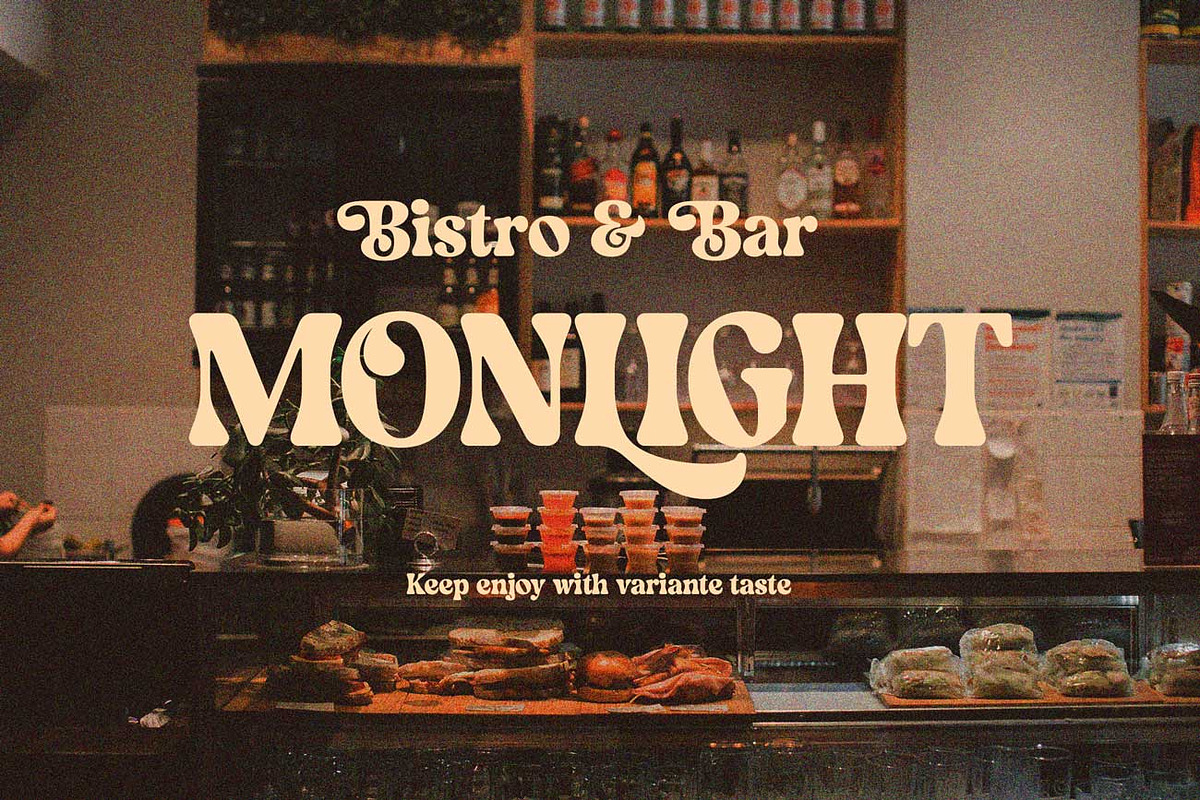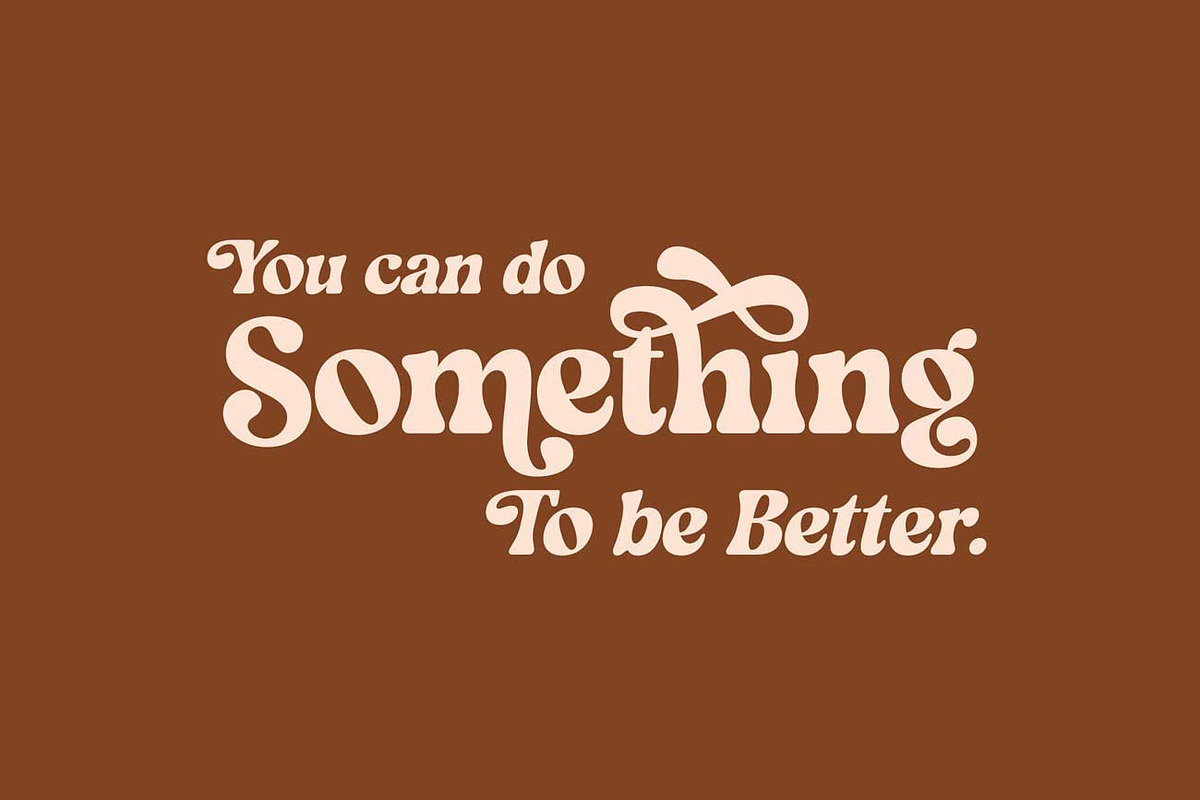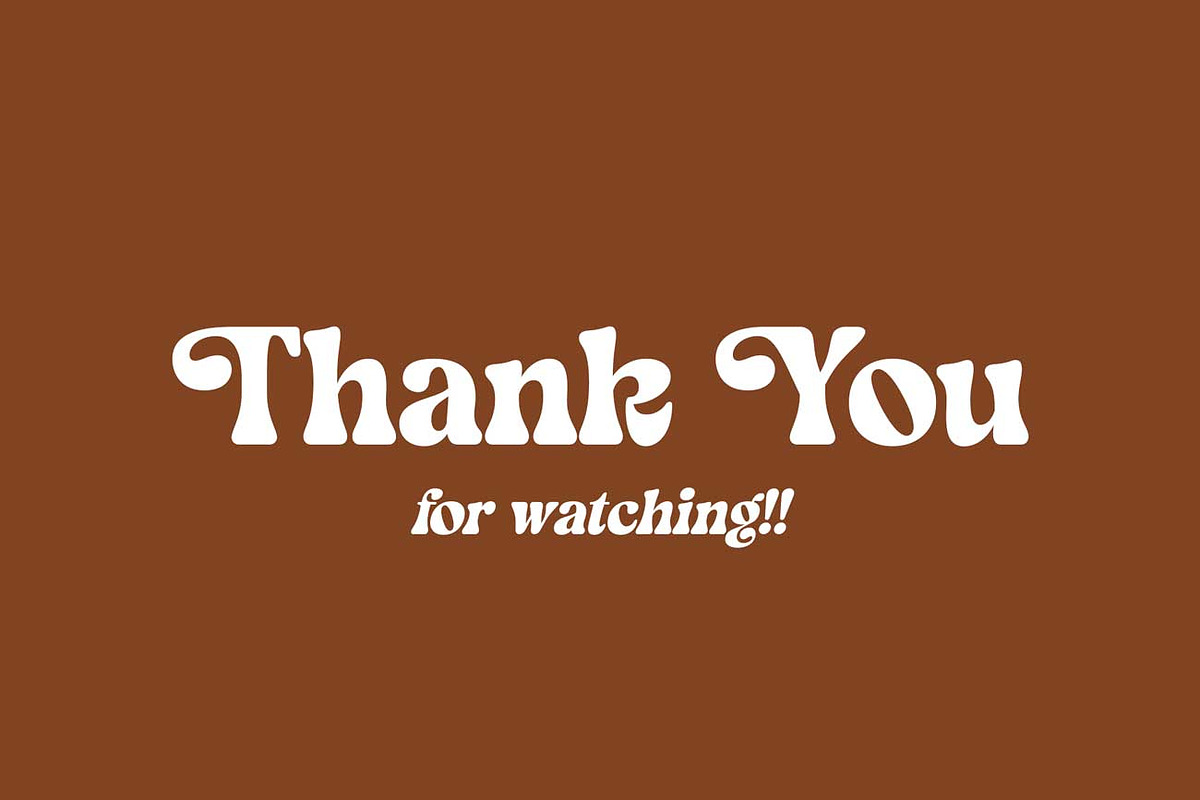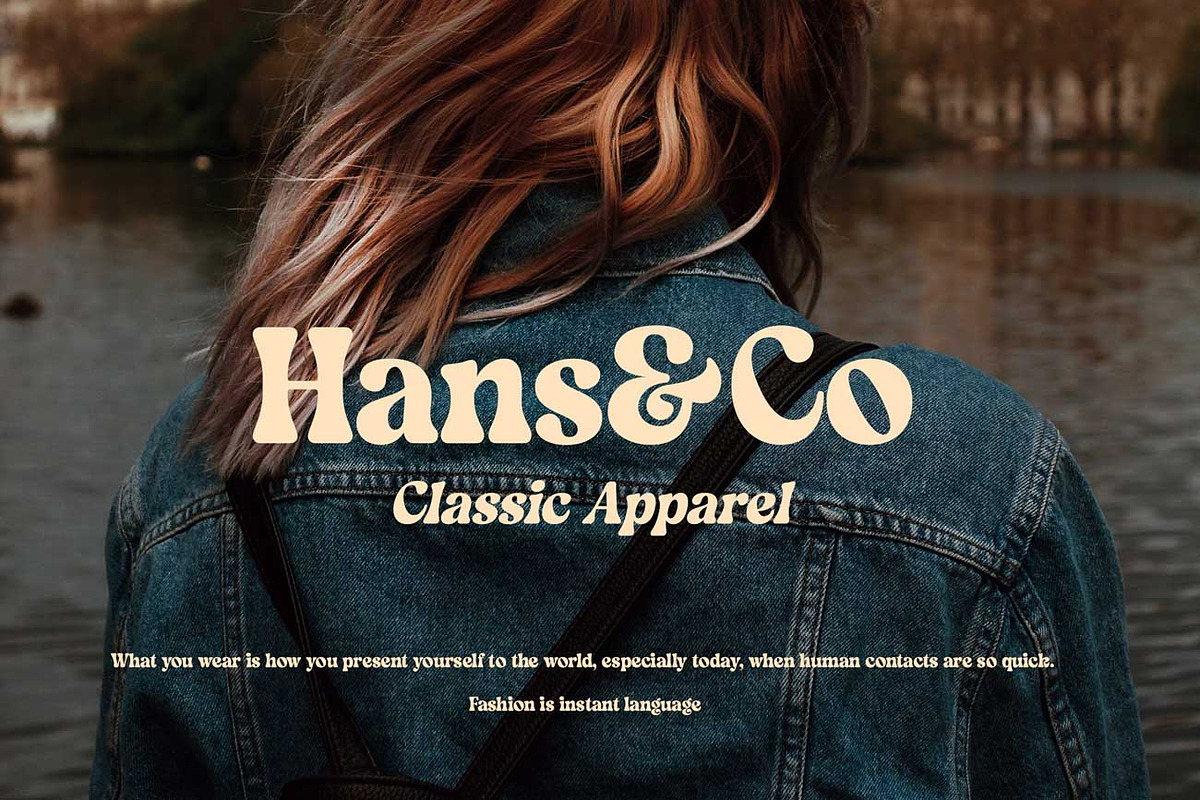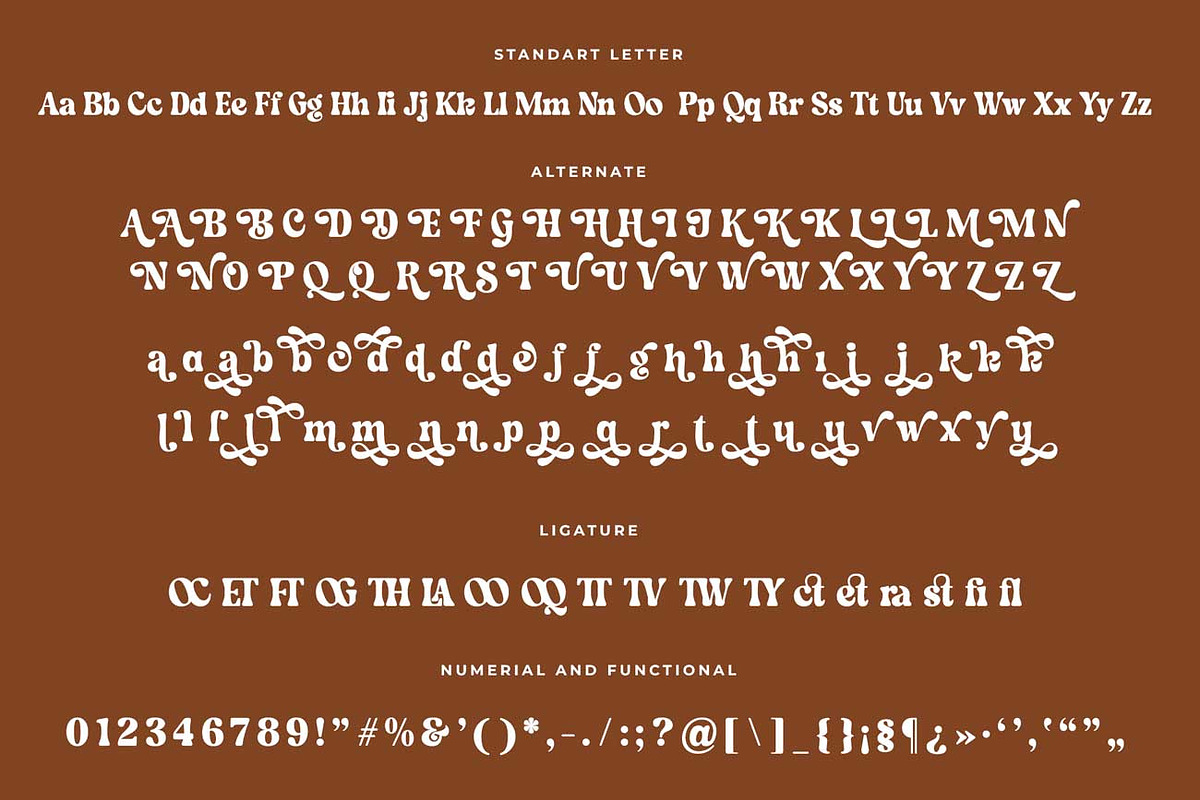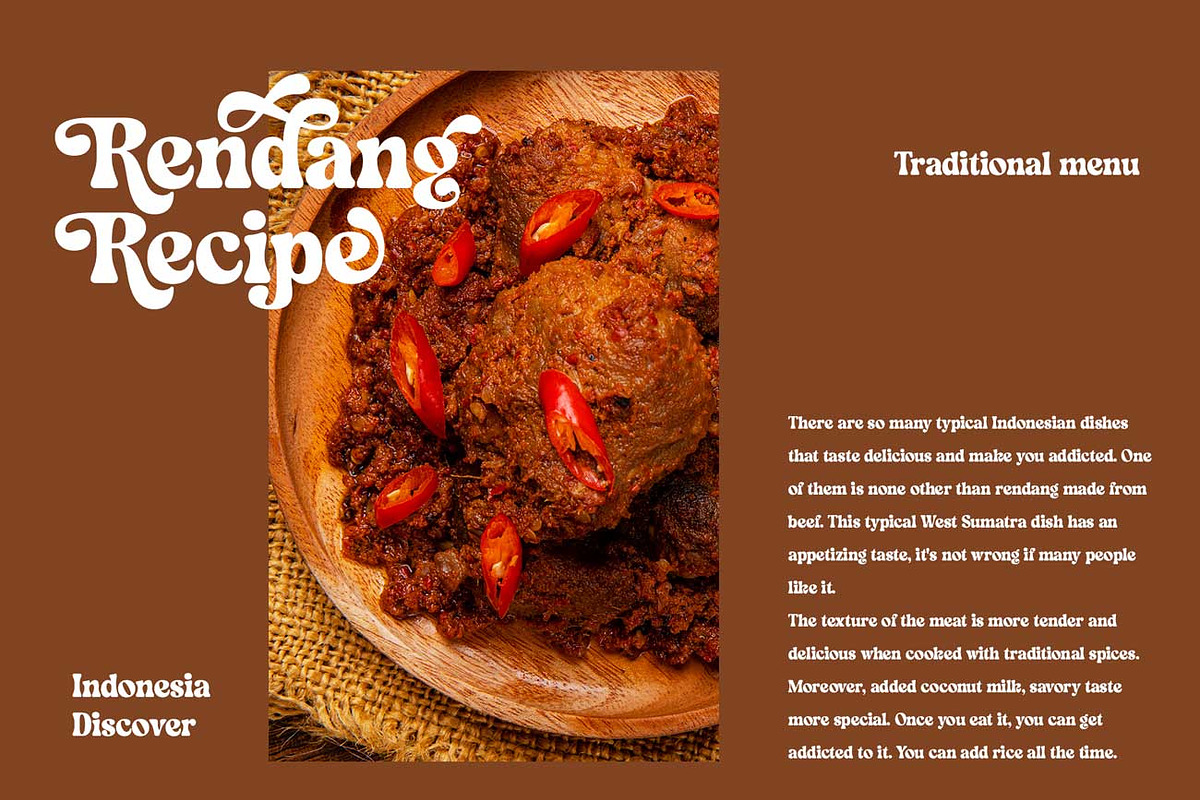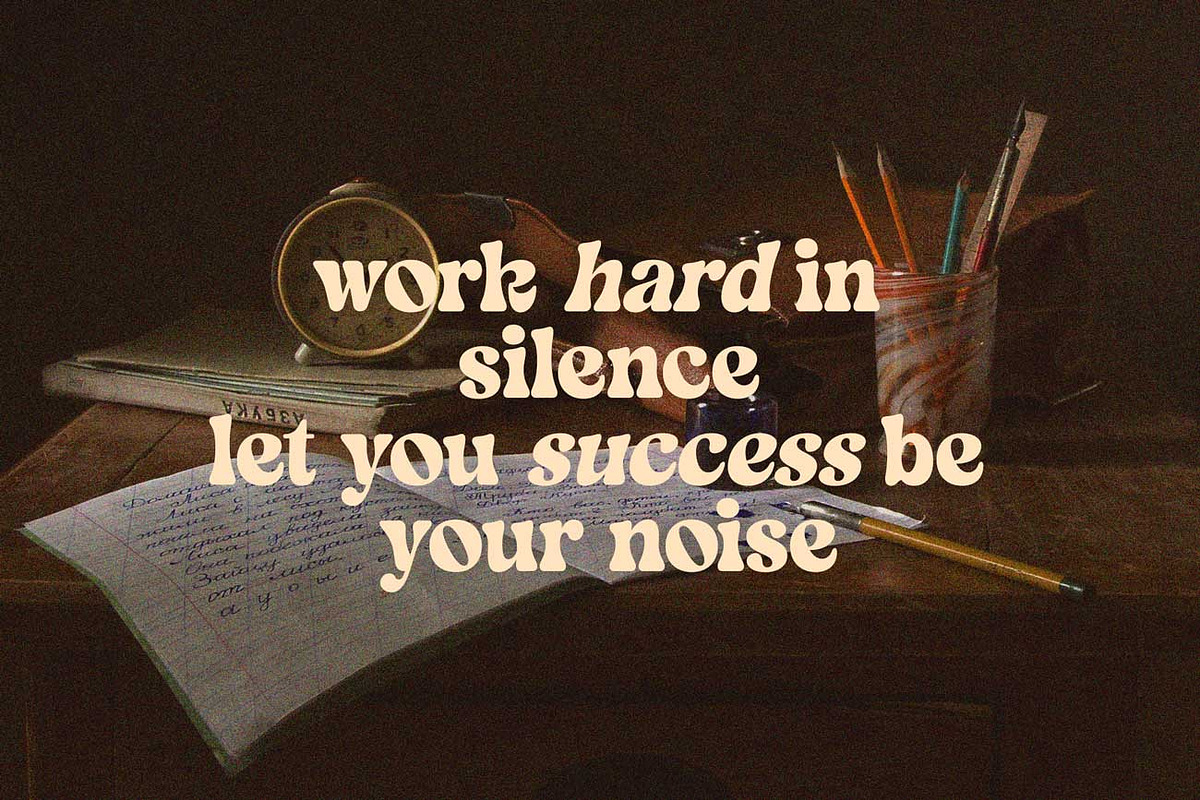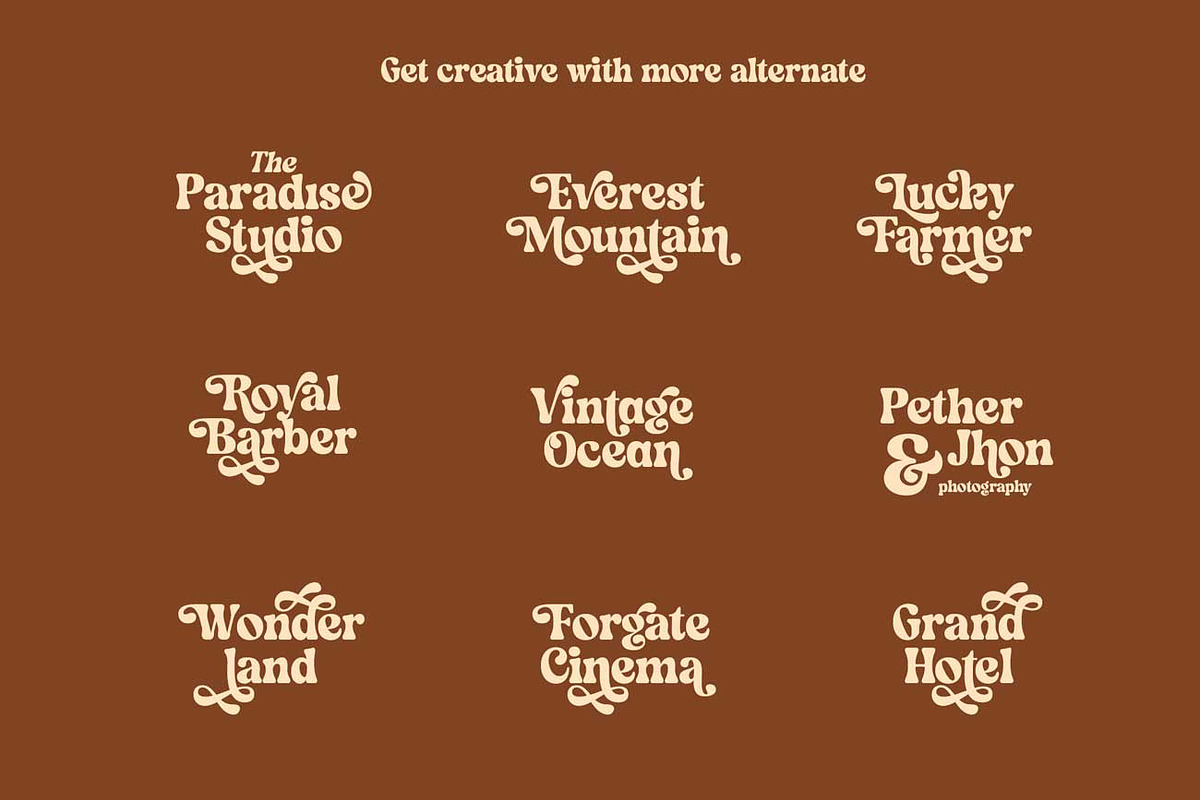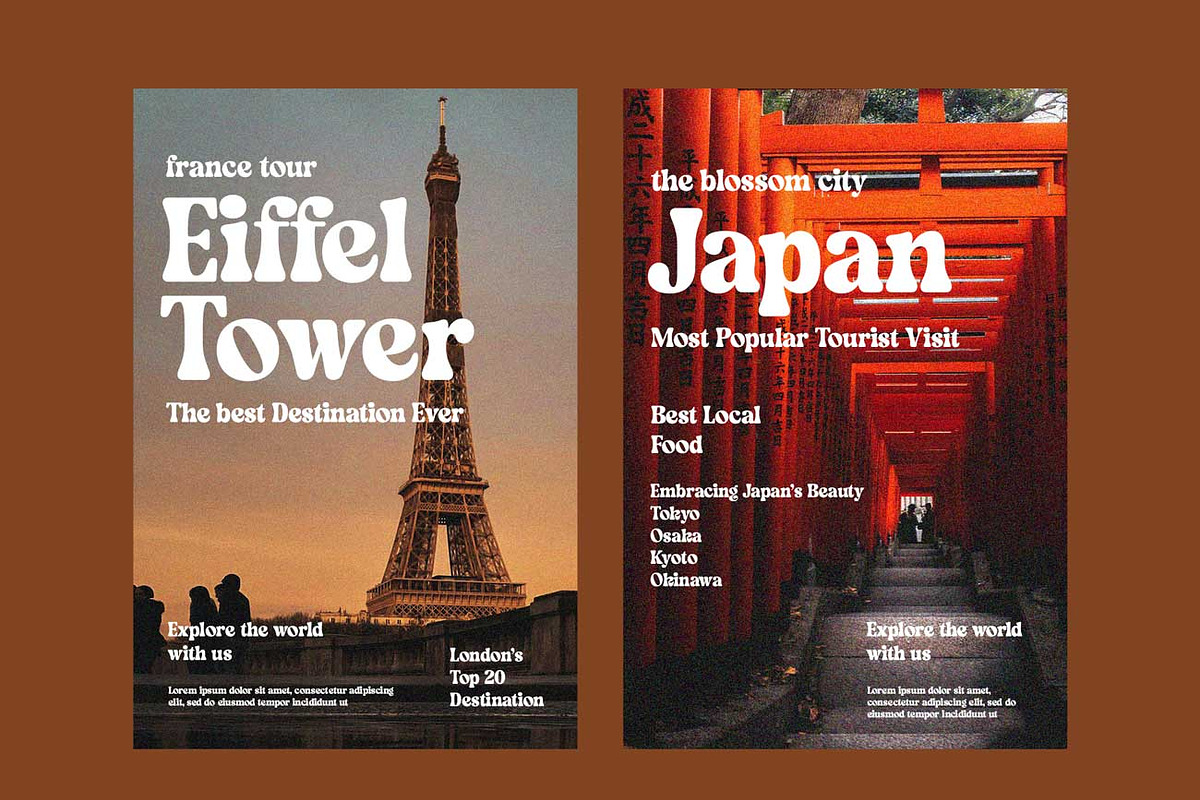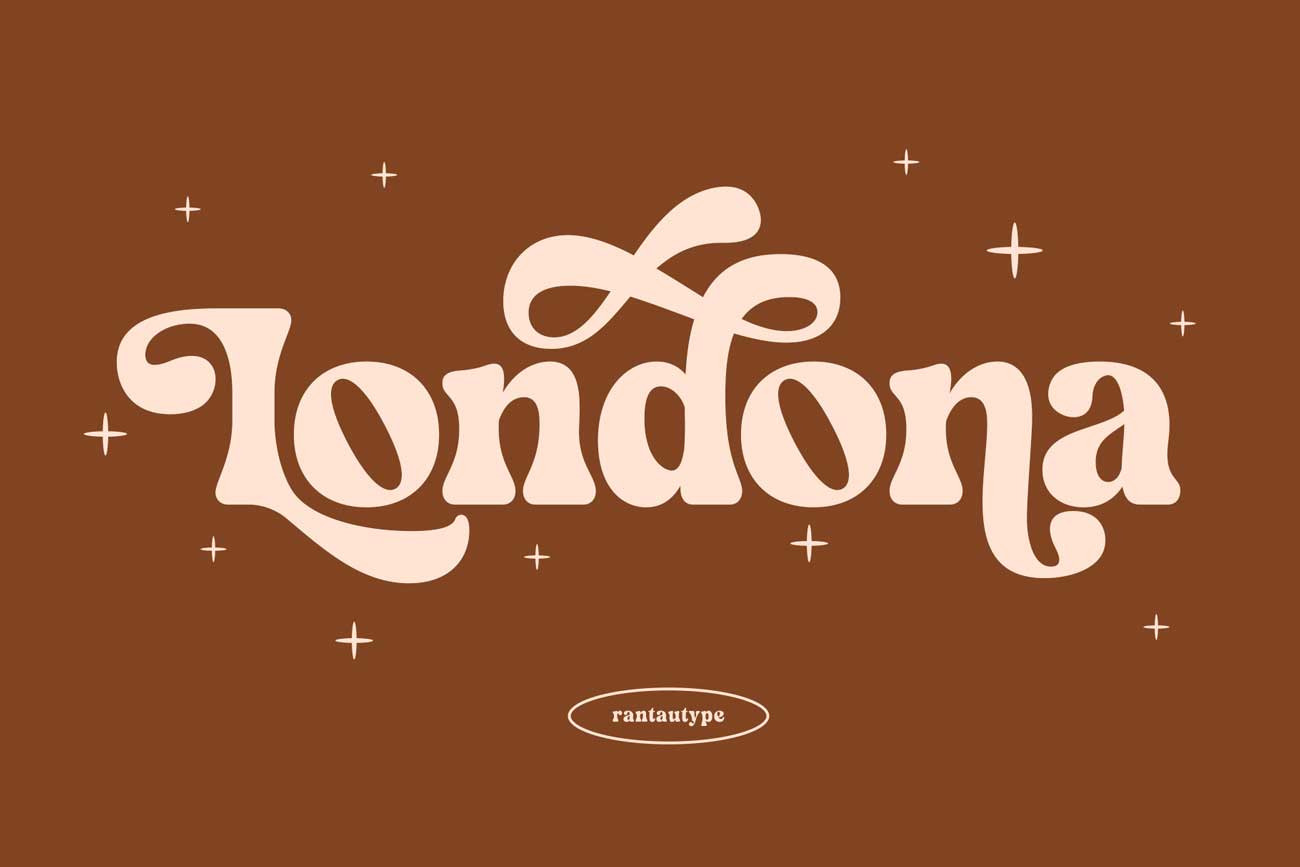
Londona - Retro Serif Font
Hi Ladies and Gentleman ! Proudly present retro serif font called Londona by rantautype.
Londona is a stylish font that is both retro and bold font. It's thick curves give a 70s groovy vibe with the serifs bringing it slightly back to traditional
Londona fits perfectly into those nostalgic moodboards and vintage logos. It come with a unique lower and uppercase plus numbers and punctional. Laurasia also have more alternate and ligature so you can get creative with more optional.
Londona- separate in reguler and italic, we are love this combination make work more awesome in nostalgic. For alternate in uppercase, numerals and punctuation. (See preview image for the full character map.)